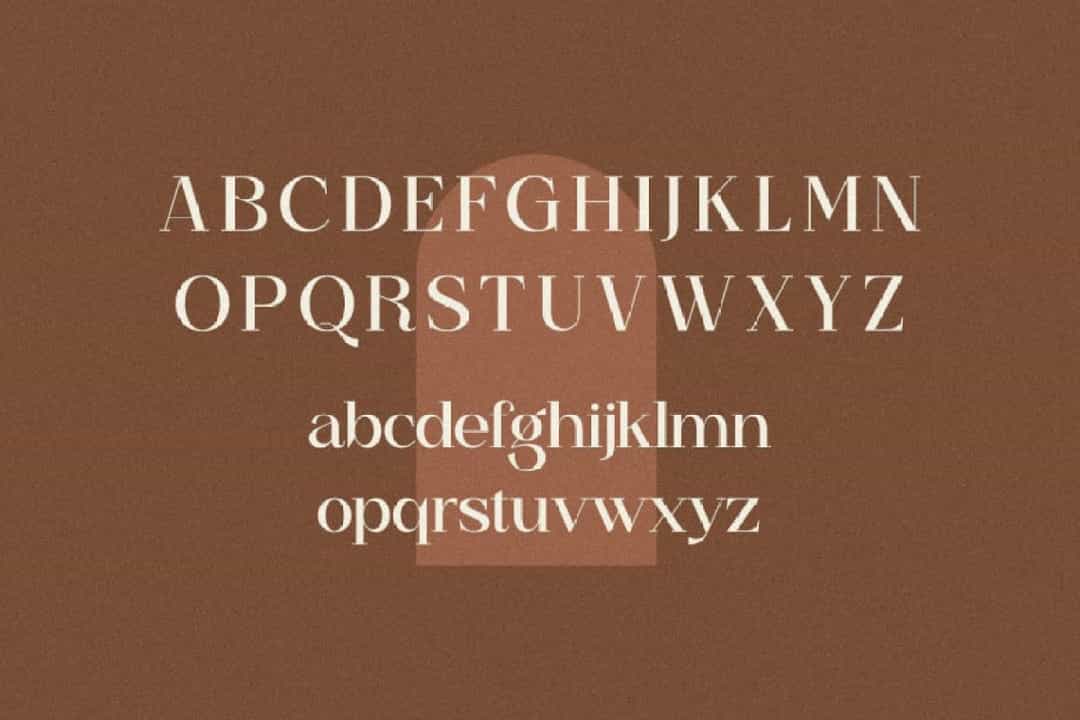
Begilasis is an elegant yet timeless serif typeface with its distinct style and contemporary appearance, ideal for logos, book or film titles, fashion brand clothing designs, magazines, lettering projects and quotes among many other uses.